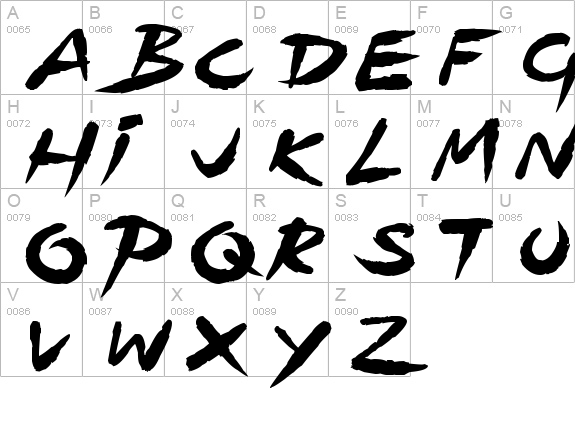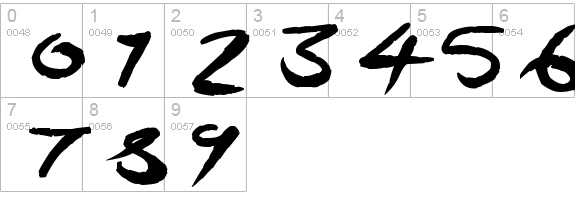
Introducing Speeding Brush font - a dynamic and energetic typeface that brings a sense of speed and movement to your designs. With its bold strokes and sharp angles, Speeding Brush is perfect for creating eye-catching headlines, posters, and logos. This font exudes a sense of urgency and excitement, making it ideal for projects that need to make a statement.
What sets Speeding Brush apart is its versatility - whether you're designing for a sports event, a music festival, or a high-energy brand, this font will bring your designs to life. The brush strokes give it a handcrafted feel, adding a touch of authenticity and personality to your work.